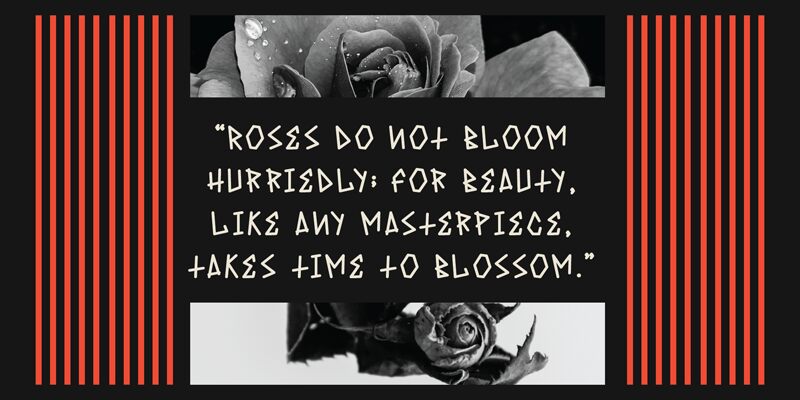
Sixpounder is a modern, display font designed by Stefie Justprince. Its thin, sleek lines make it perfect for attention-grabbing headlines or stylish logos. It can be used to add an eye-catching touch to posters, flyers, or social media graphics. Sixpounder is also great for adding a unique look to magazines and other printed materials. Its versatility allows you to create both classy and quirky designs with ease!